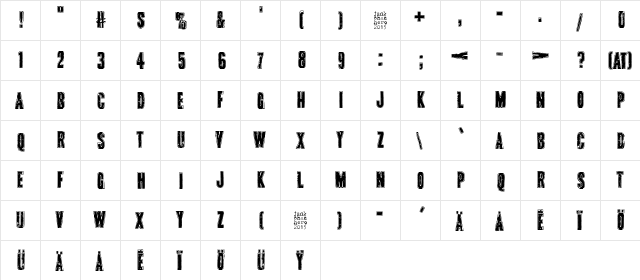
Pink T-shirt Regular
Design Context for Pink T-shirt Typeface
Pink T-shirt is a composed and adaptable typeface that performs quietly and consistently across a wide range of design contexts.